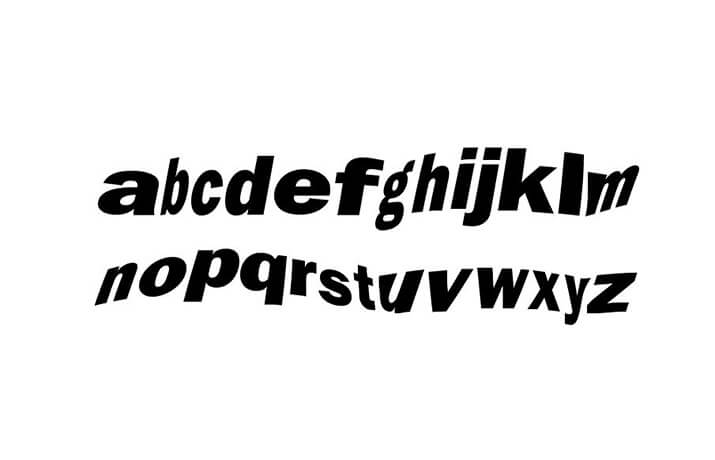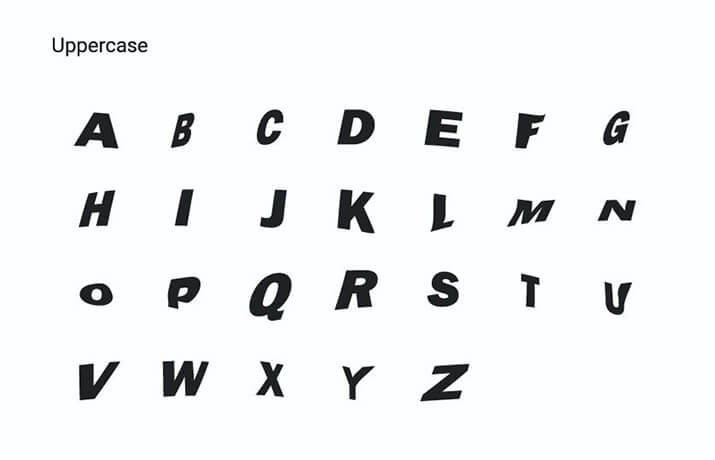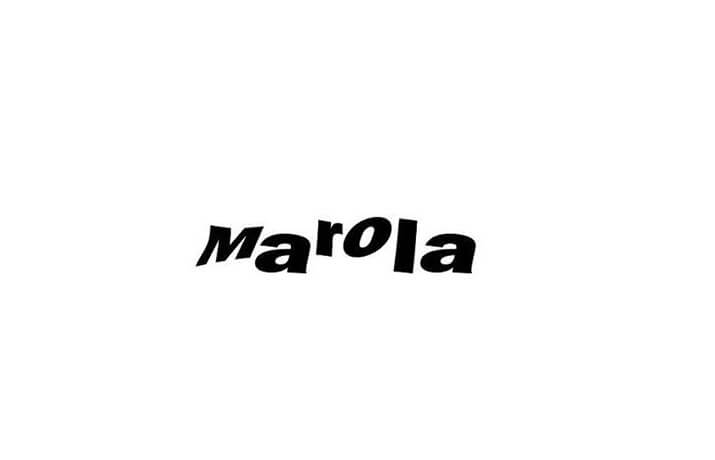
Marola Font is a playful fancy typeface that is perfect for kids’ superhero comics. With a variety of special characters and a full list of upper and lowercase letters, this font will surprise you.
All the textures of this font are made with thick strokes with stylish curves that add extra creativity to the entire typeface.
So, you will really find uniqueness in this amazing font. Because it definitely helps in creating unique designs. Perhaps you should analyze this ability.
| Style: | Display, Cartoon, Fancy |
This comic font can be used for banner ads, billboards, headlines, titles, logos, watermarks on photos, comic covers, printing cards, book covers, comic books, printing, special events, etc.
It has available in just one regular style along with a TTF file format. This single style has 142 characters including uppercase, lowercase, numbers, and marks.